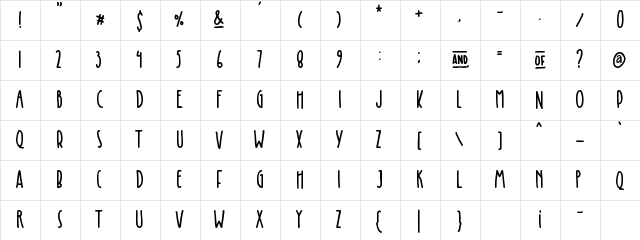
Kinglet Cute Regular
Designer: Malik Wisnu
Design Context for Kinglet Cute
Kinglet Cute is a composed and adaptable typeface that performs quietly and consistently across a wide range of design contexts.
Pro Tip: Use Kinglet Cute in both headline and body roles to test its range before committing to a single application.